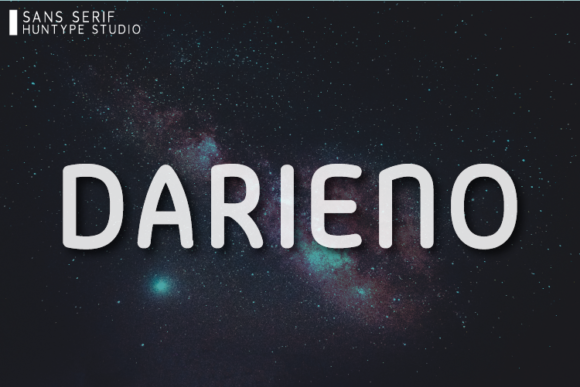
In the realm of visual expression, fonts hold a power beyond mere letters. They dance across digital landscapes, captivating the eyes and leaving lasting impressions. Darieno Font, a sans serif masterpiece crafted by Huntype, embodies this captivating spirit like no other. Its clean lines and modern simplicity will transform your designs into a visual symphony, leaving your audience spellbound.
Darieno Font is the perfect companion for those seeking clarity and impact. Whether you're crafting stunning logos, eye-catching headlines, or immersive web designs, this font will elevate your creations to new heights. Its versatility knows no bounds, effortlessly adapting to both formal and non-formal settings. Imagine your designs adorned with Darieno's graceful strokes, commanding attention and sparking conversations.
Step into a world where words dance and meaning takes flight. Darieno Font is the maestro of visual communication, guiding your messages to their intended destination with effortless elegance. Its crisp lines and open letterforms ensure readability and clarity, while its inherent charm adds a touch of sophistication that sets your designs apart.
With Darieno Font, you'll discover a new level of creative freedom. Its simple yet striking presence allows your designs to shine, unleashing your imagination and enabling you to craft visual masterpieces that resonate with your audience. Don't settle for ordinary fonts that blend into the background. Embrace the transformative power of Darieno and let your designs speak volumes.
Darieno Font is more than just a collection of characters; it's a gateway to a world where visual impact meets emotional connection. Its clean lines and modern aesthetics will leave your audience mesmerized, creating a lasting impression that lingers long after they've closed their screens. Experience the transformative power of Darieno Font today and take your designs to new heights of brilliance.